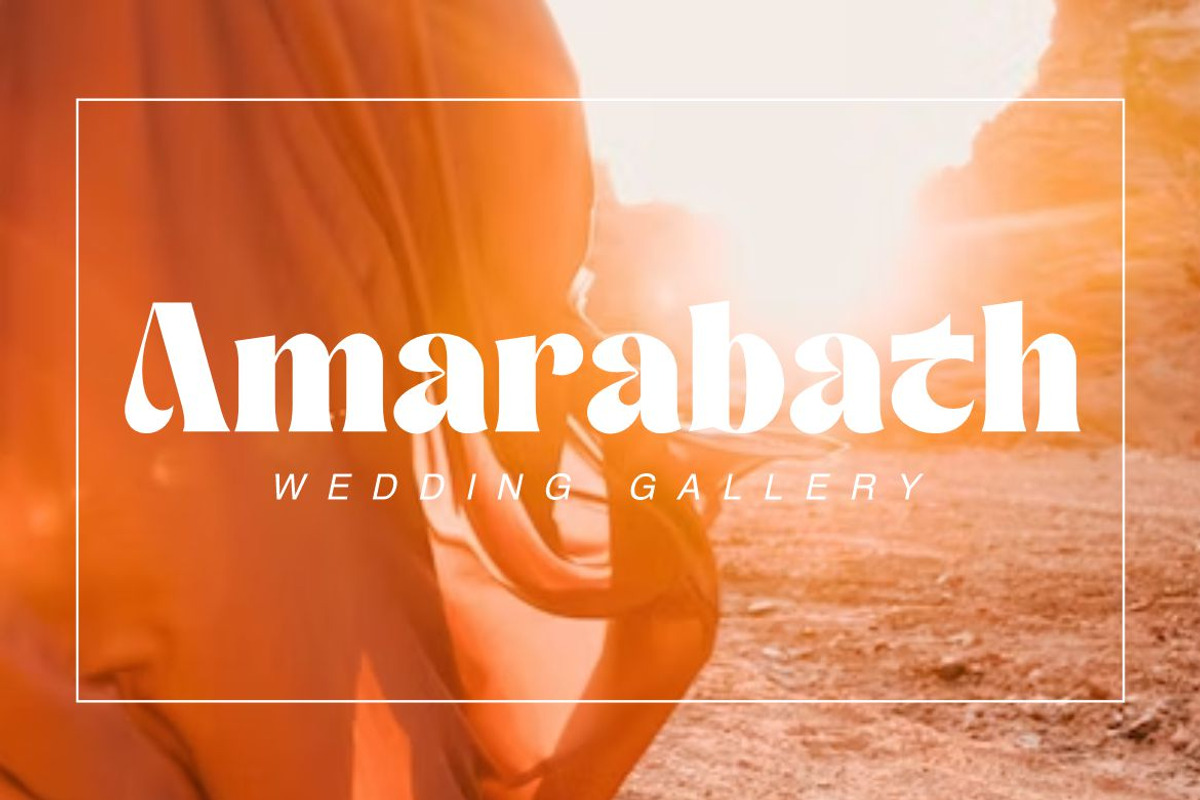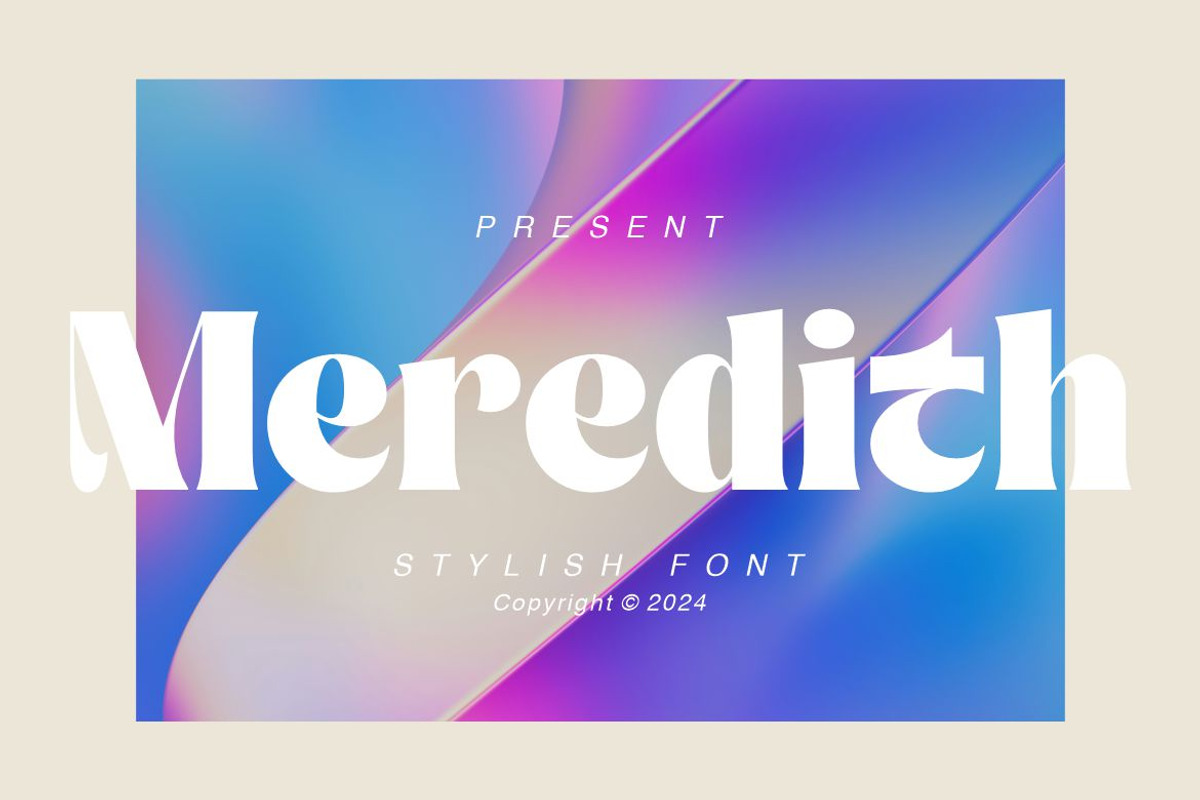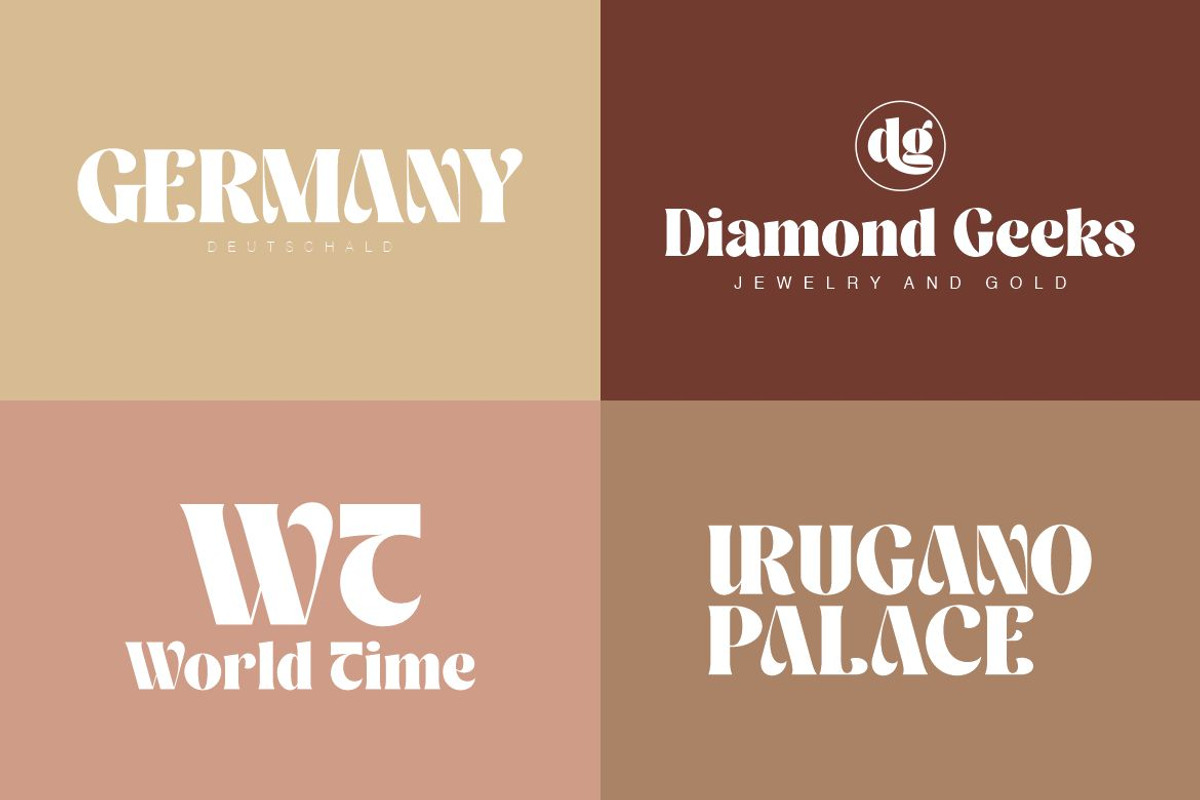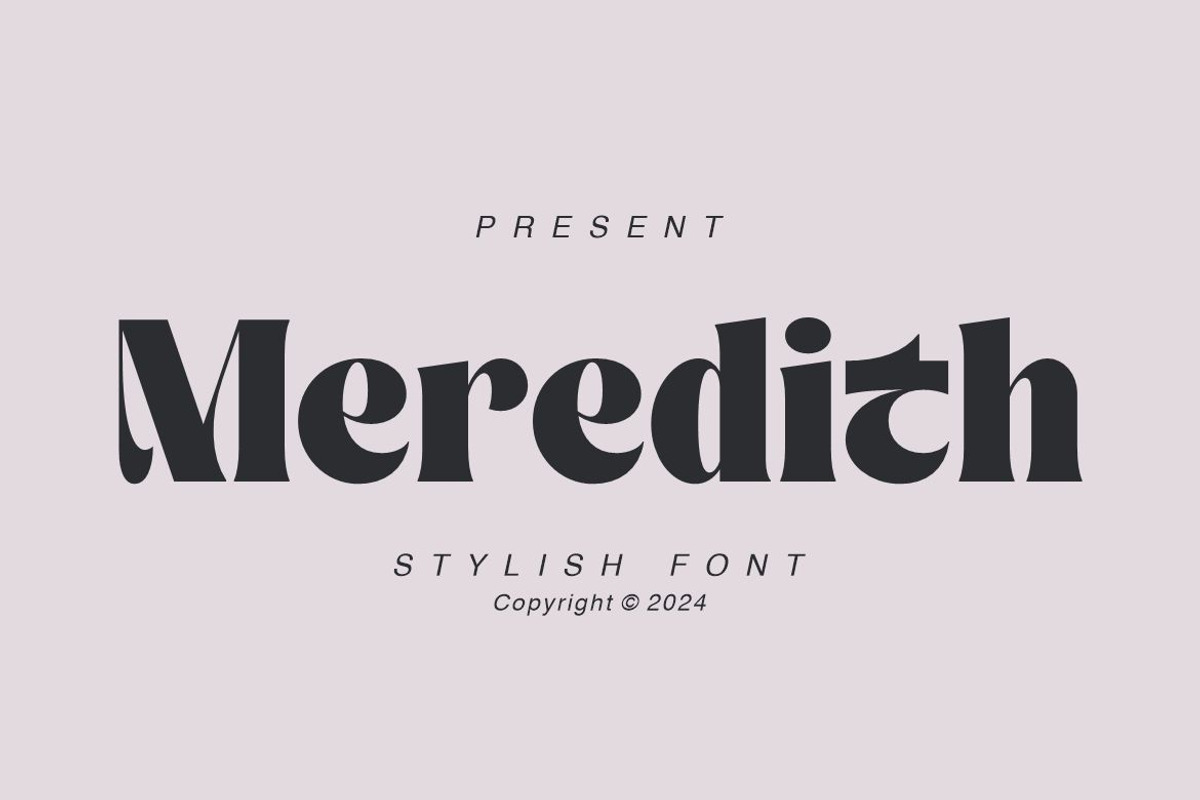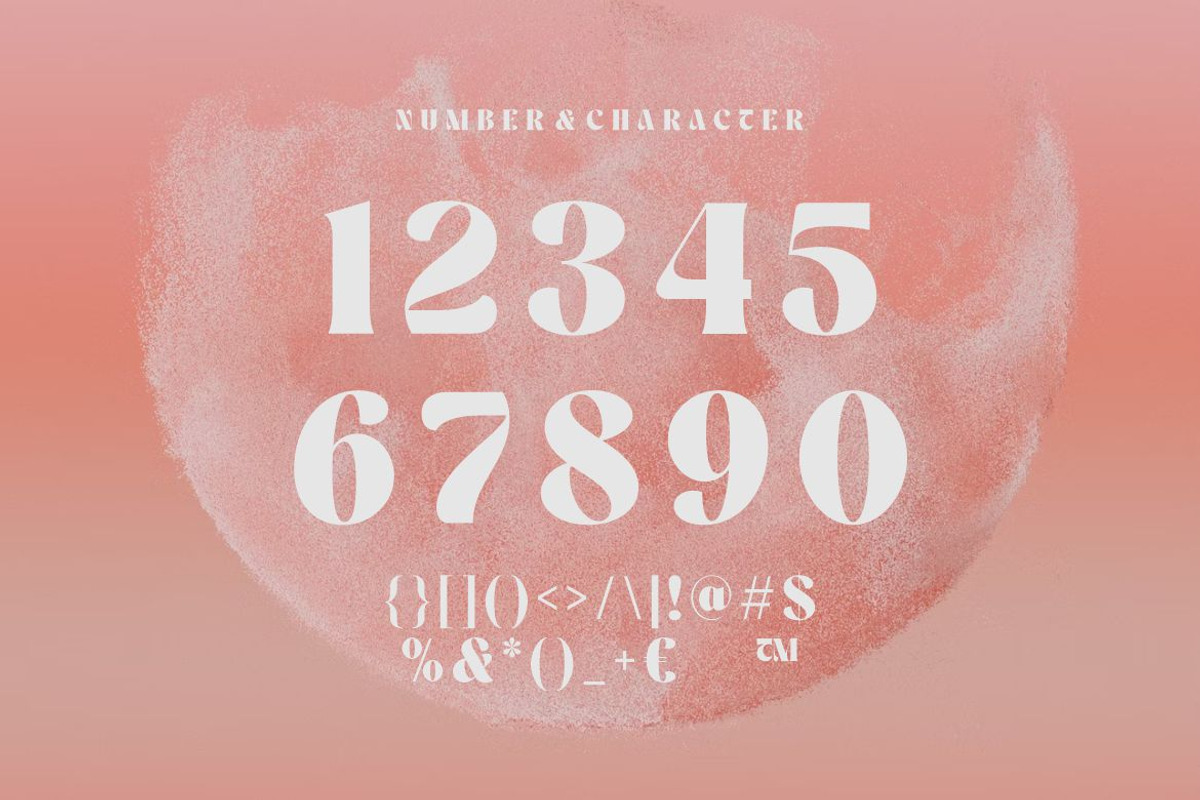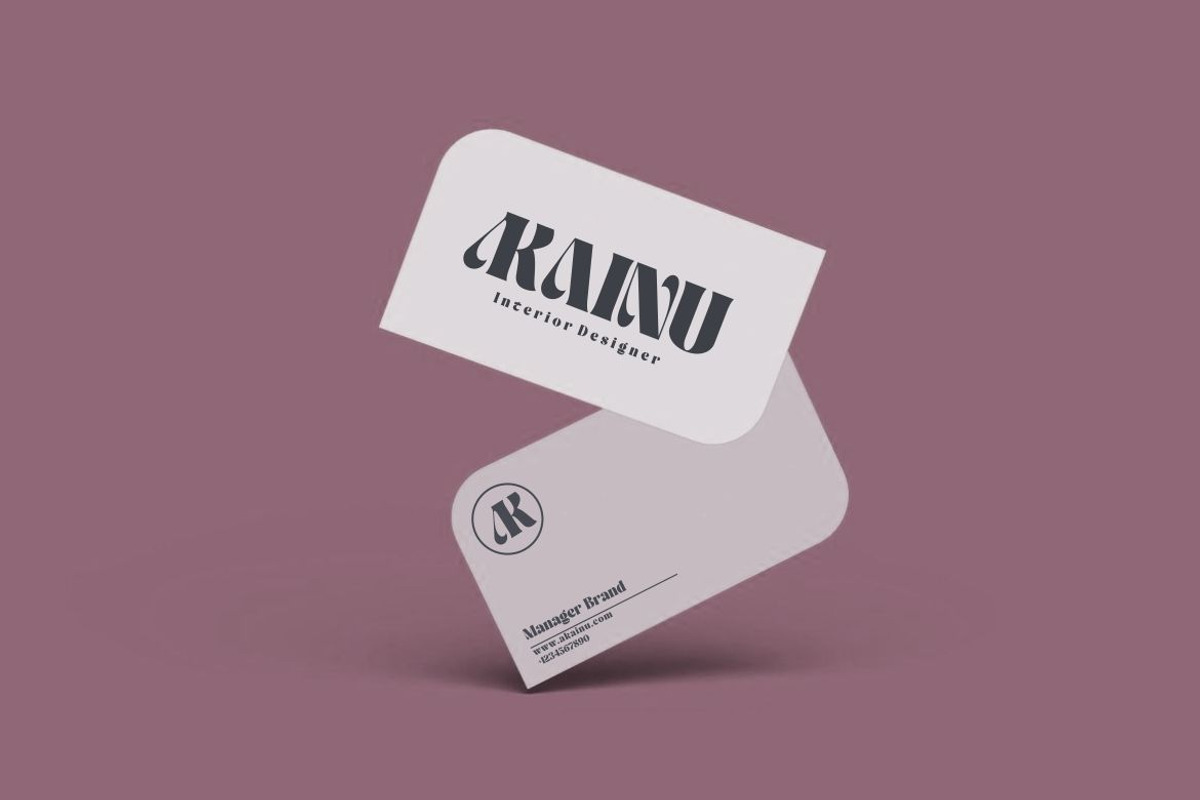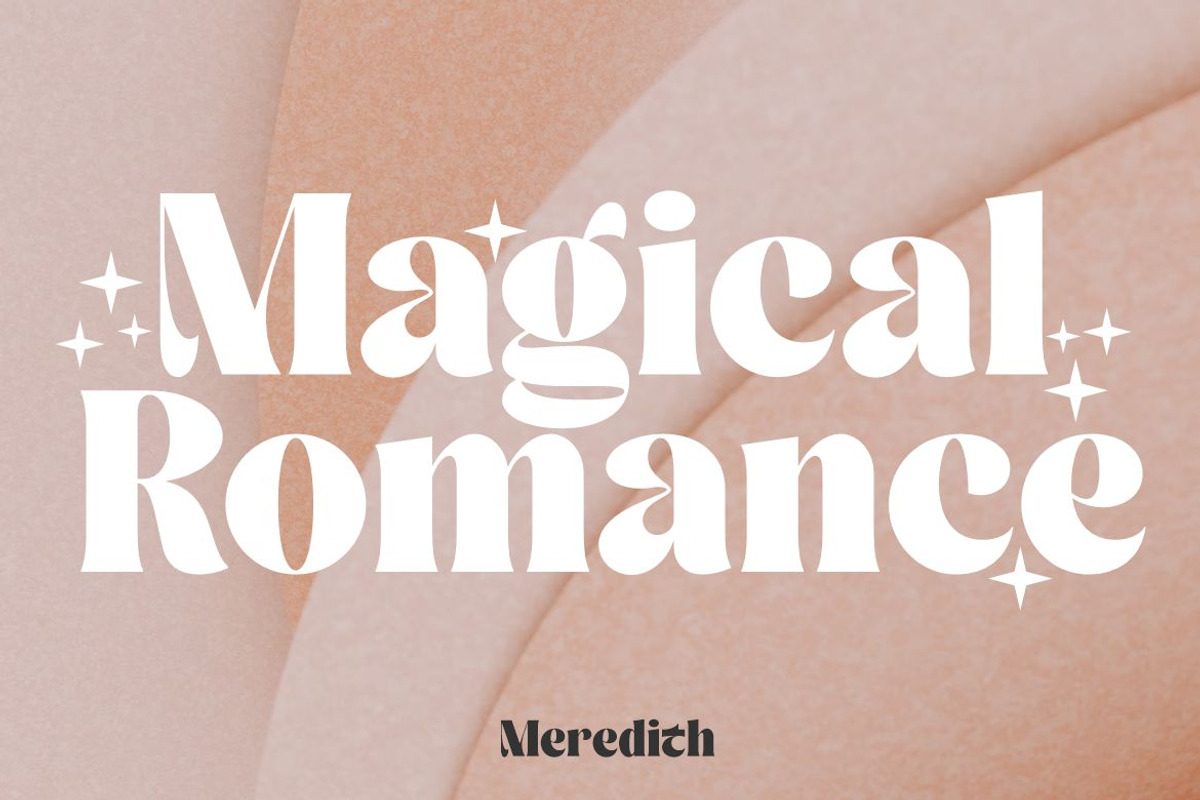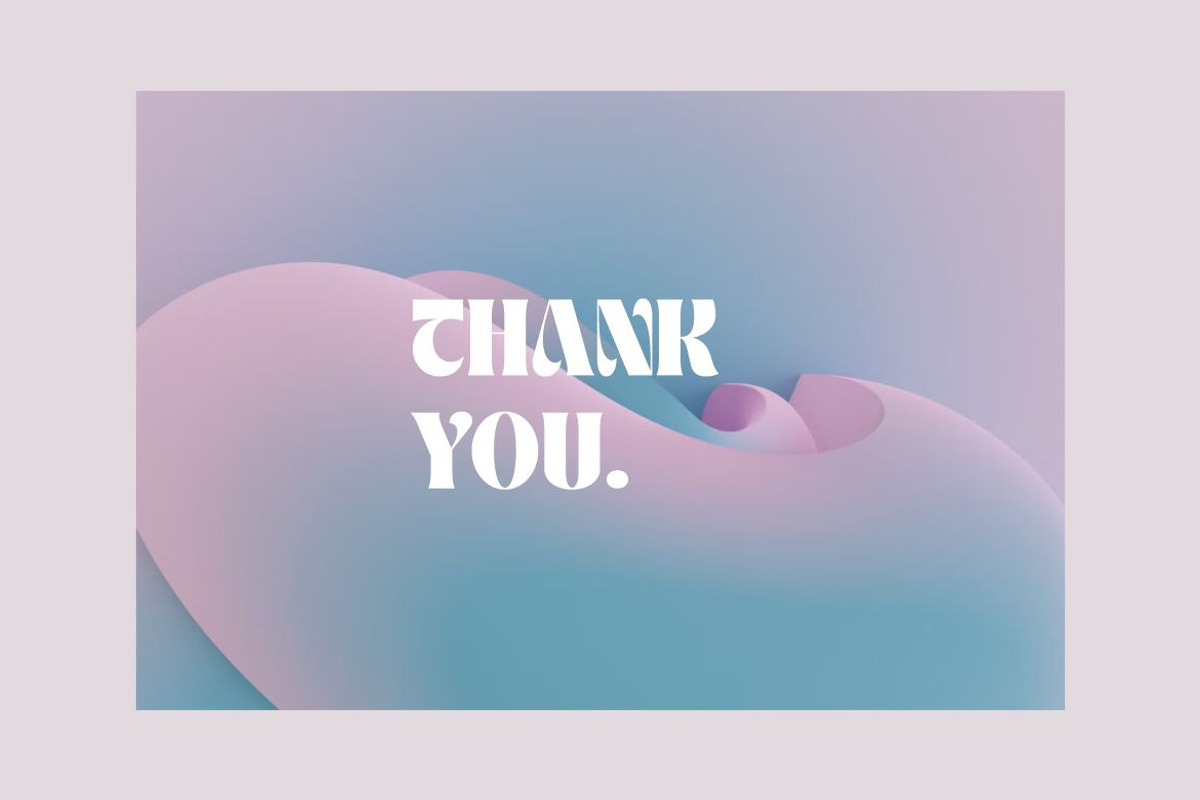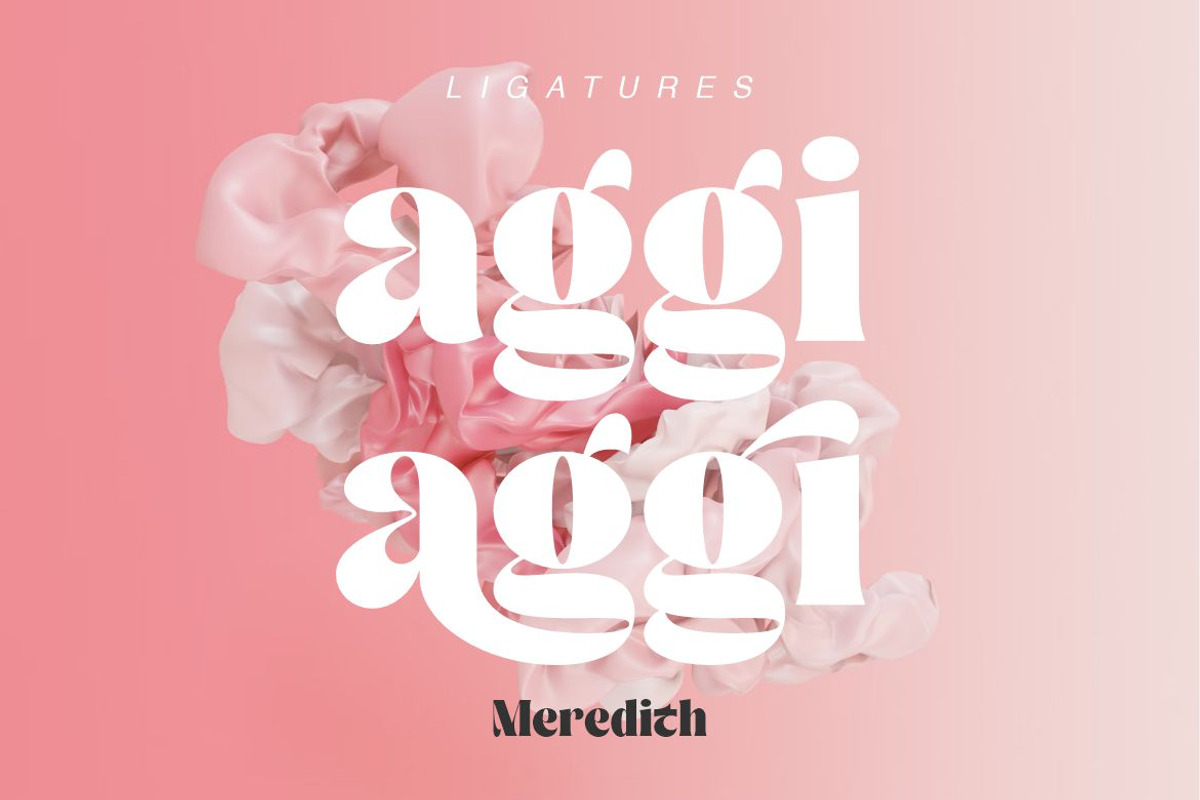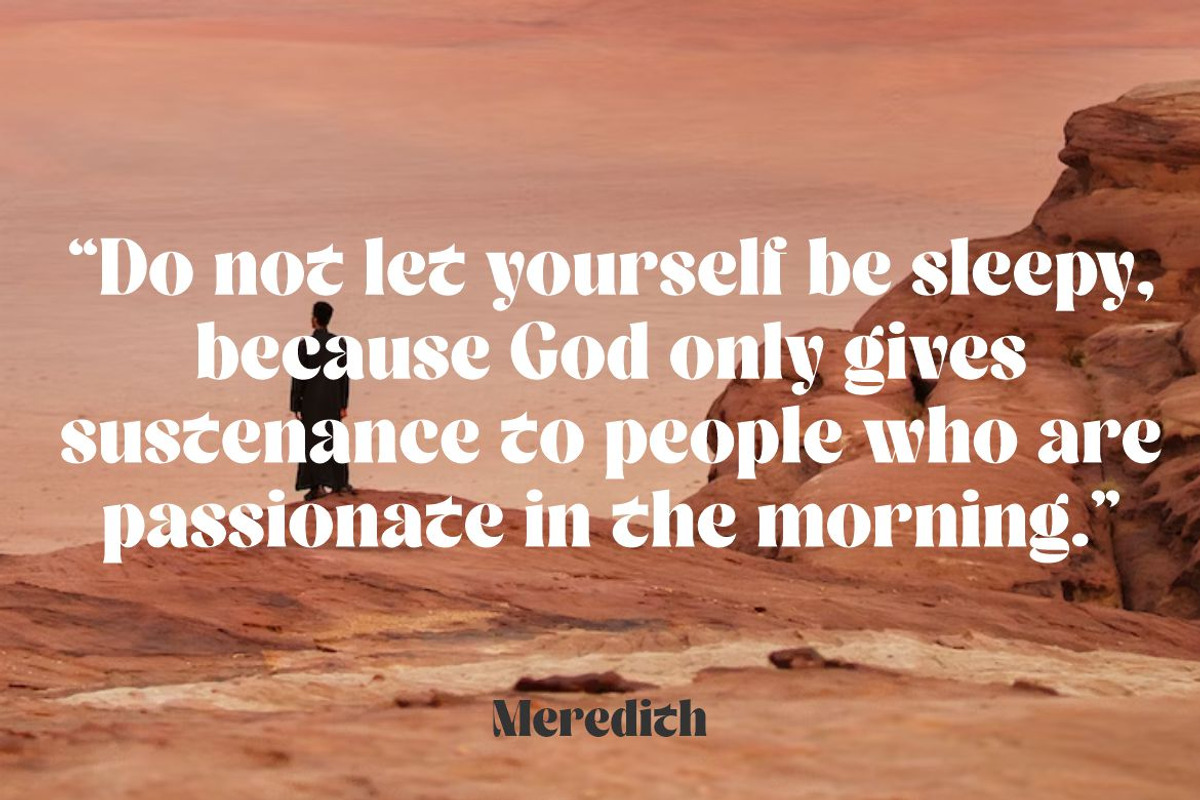
Meredith
Meredith with an artistic touch that is elegantly modern yet vintage and a unique combination of binding letters, so that the author arranges them with a slightly swirling embedding, thus forming a font that is modern and ready to make a statement. adding an elegant and unique feel to your next design project.